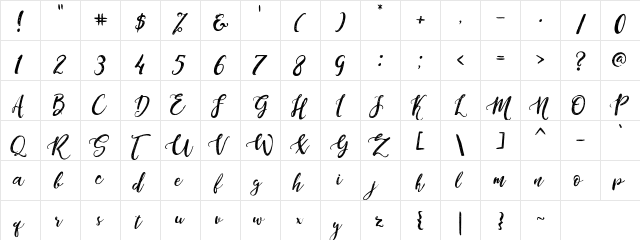
Dandeleon Vintage Demo Regular
Design Context for Dandeleon Vintage Demo Typeface
Dandeleon Vintage Demo wears its vintage influences proudly, with letterforms that recall mid-century signage, classic packaging, and nostalgia-driven design.
Perfect for vintage-inspired branding, retro packaging, nostalgia campaigns, and period-accurate editorial design.
Font Pairing: Combine Dandeleon Vintage Demo with a simple slab or neutral sans — period-accurate companions reinforce the vintage feel without competing for attention.
Pro Tip: Use Dandeleon Vintage Demo for headlines and pull quotes rather than body copy — its personality is best appreciated in short, focused bursts.